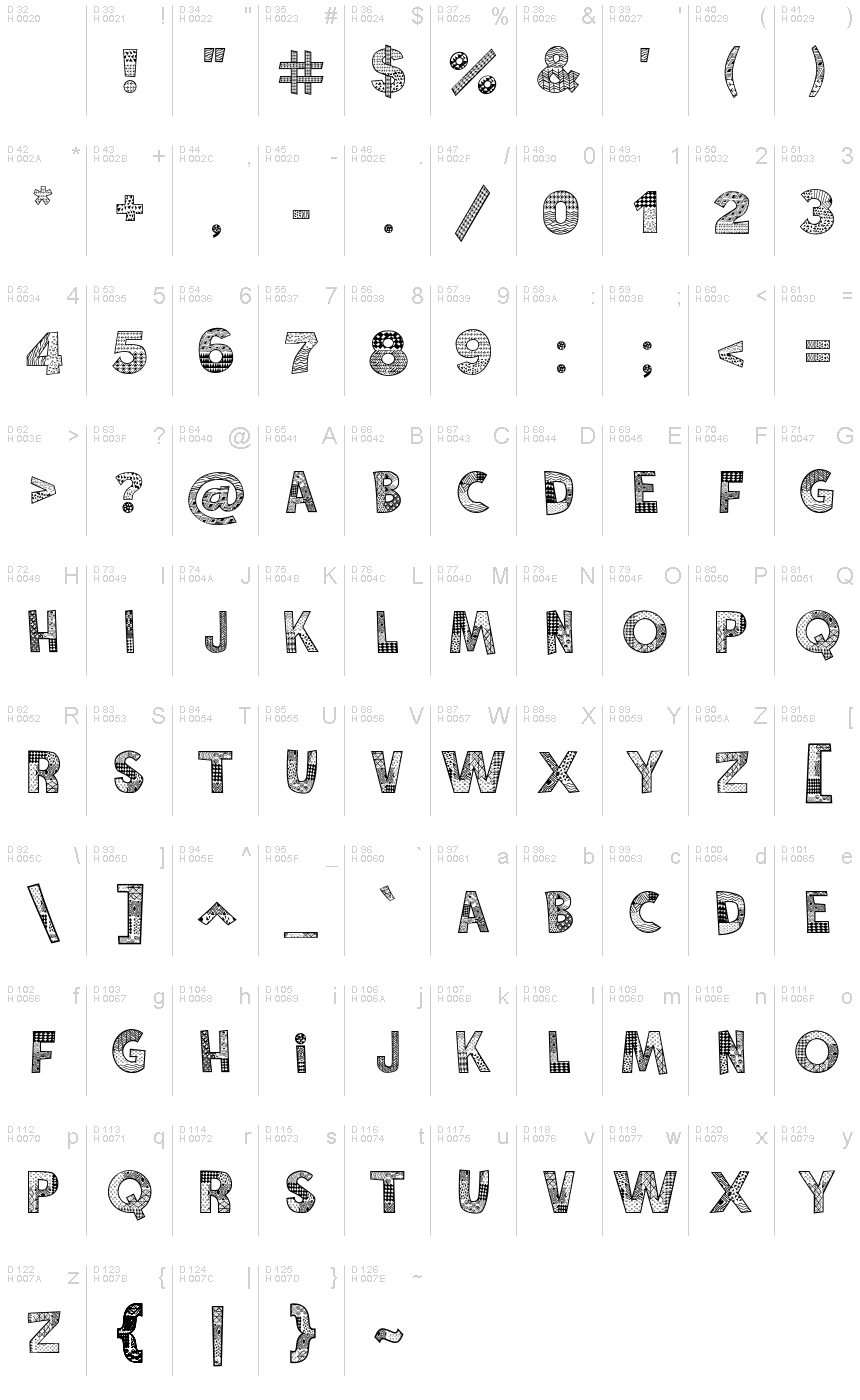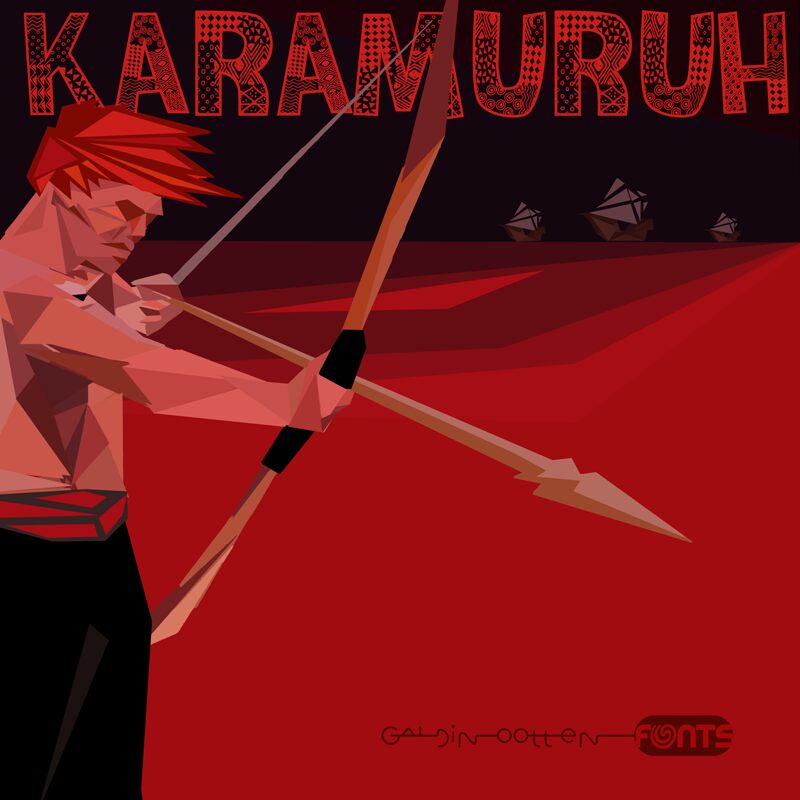
Karamuruh
Karamuruh font by Galdino Otten Fonts instantly makes it as one of the most decorative communication tools for bold and interesting text. The display font is characterized by decorated letters with complex patterns, intricate shapes, and other unique elements. The bold characters stand out even more when combined with the different design features not commonly found in other fonts.
Being a full character set font, Karamuruh supports reading texts in several languages, making it useful and accessible to many online users. It is free to be downloaded for display posters’, flyers’, business cards’, packaging covers’ titles.